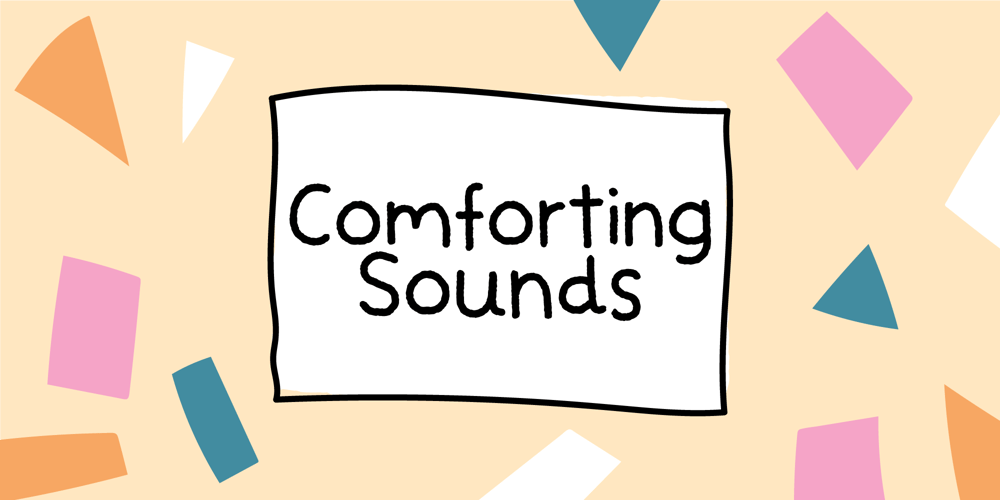
Comforting Sounds Font Family was designed by Jakob Fischer and published by PizzaDude.dk. Comforting Sounds contains 2 styles and family package options. Sometimes the way forward is simplicity. That goes for your personal life as well as designing. Sometimes what catches the eye is something simple. My Comforting Sounds font is a handmade sans serif font. It has a crunchy line, an organic look and legibility even at very small sizes. And in a charming way, it is quite simple!